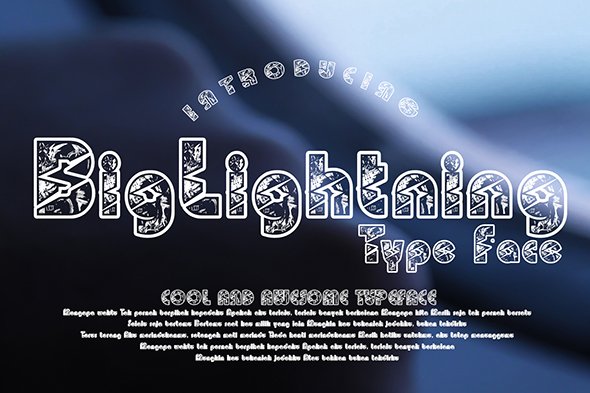
The Spark of Creativity: Unlocking the Power of BigLightning Font
Have you ever found yourself stuck in a design rut, staring blankly at a blank canvas, waiting for that elusive spark of inspiration to strike? We’ve all been there. It’s in those moments of creative limbo that we crave a tool to shake things up, to add some much-needed energy and excitement to our work. For designers looking to inject a bit of lightning into their designs, BigLightning Font by Gblack Id is the perfect solution.
This bold, eye-catching font is more than just a pretty face – it’s a powerful tool designed to add impact and dynamism to your designs. With its unique, energetic feel, BigLightning Font is perfect for making a statement, whether you’re creating a bold logo, designing a eye-catching headline, or simply adding some flair to your social media graphics.
For designers, BigLightning Font is a valuable asset, offering a fresh and exciting way to add some personality to their work. Whether you’re a seasoned pro or just starting out, this font is sure to inspire and delight, helping you to create designs that truly stand out from the crowd.
BigLightning Font Key Features
- Unique Characteristics: This font features a unique, modern design with bold lines and a dynamic feel, making it perfect for use in digital signage, advertising, and other high-impact applications.
BigLightning Font Review
First off, I really appreciate the creator’s attempt to craft a font that’s both bold and elegant. ✨ The BigLightning Font does deliver on its promise of being attention-grabbing and eye-catching, making it perfect for use in titles, headings, or any element where you want to draw the user’s attention. The font’s bold lines and geometric shapes give it a unique, modern look that’s sure to turn heads.
However, I do have some reservations about the font’s limitations. ⚠️ Firstly, the font’s boldness can be overwhelming at times, making it difficult to read for extended periods. This is particularly true for body text or any text that requires a high level of readability. Additionally, the font’s lack of subtlety can make it come across as trying too hard to be edgy or trendy.
- ✨ Unique and modern design
- ✨ Perfect for use in titles, headings, or attention-grabbing elements
- ⚠️ Can be overwhelming to read for extended periods
- ⚠️ Lacks subtlety and can come across as trying too hard to be edgy or trendy
Overall, I’d say the BigLightning Font is a solid choice for designers looking to add a touch of modernity to their projects. However, it’s essential to use it judiciously and in the right context to avoid overwhelming the user.
BigLightning Font: A Practical Application Guide
Getting the Most Out of BigLightning Font
To get the most out of BigLightning Font, use it for bold headlines and titles. Its unique design makes it perfect for grabbing attention and creating a visually appealing design.
BigLightning Font is commonly used in:
- Graphic designs (posters, flyers, brochures)
- Presentation designs (slides, reports)
- Pair the font with a gradient background that transitions from dark to light to create a sense of depth and dimension.
Combining BigLightning Font with other design elements:
Project 2: Retro-Futuristic Poster
Create a retro-futuristic poster that showcases BigLightning Font’s unique, blocky design. The font will add a nostalgic and sci-fi feel to the poster, making it perfect for a retro-themed event or campaign.
To use BigLightning Font, design the poster with a bold, bright background and apply the font in a matching color. Experiment with different font sizes and styles to create a visually appealing composition.
Combining BigLightning Font with other design elements: